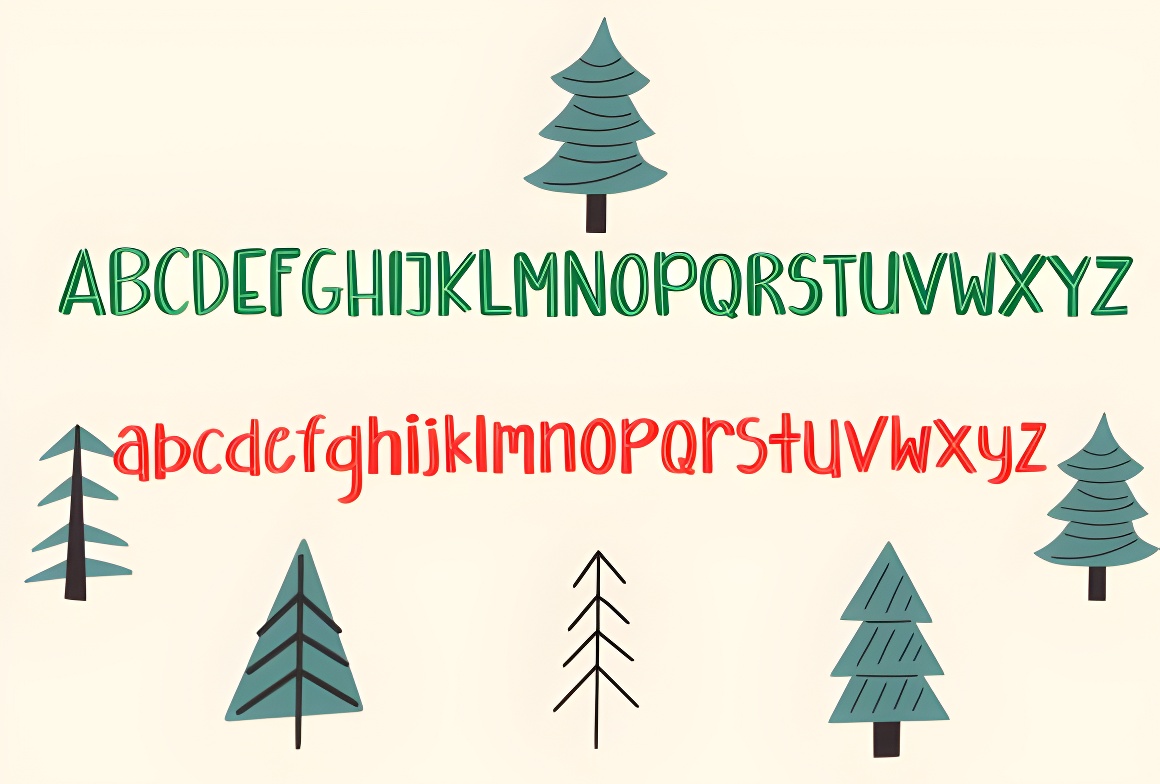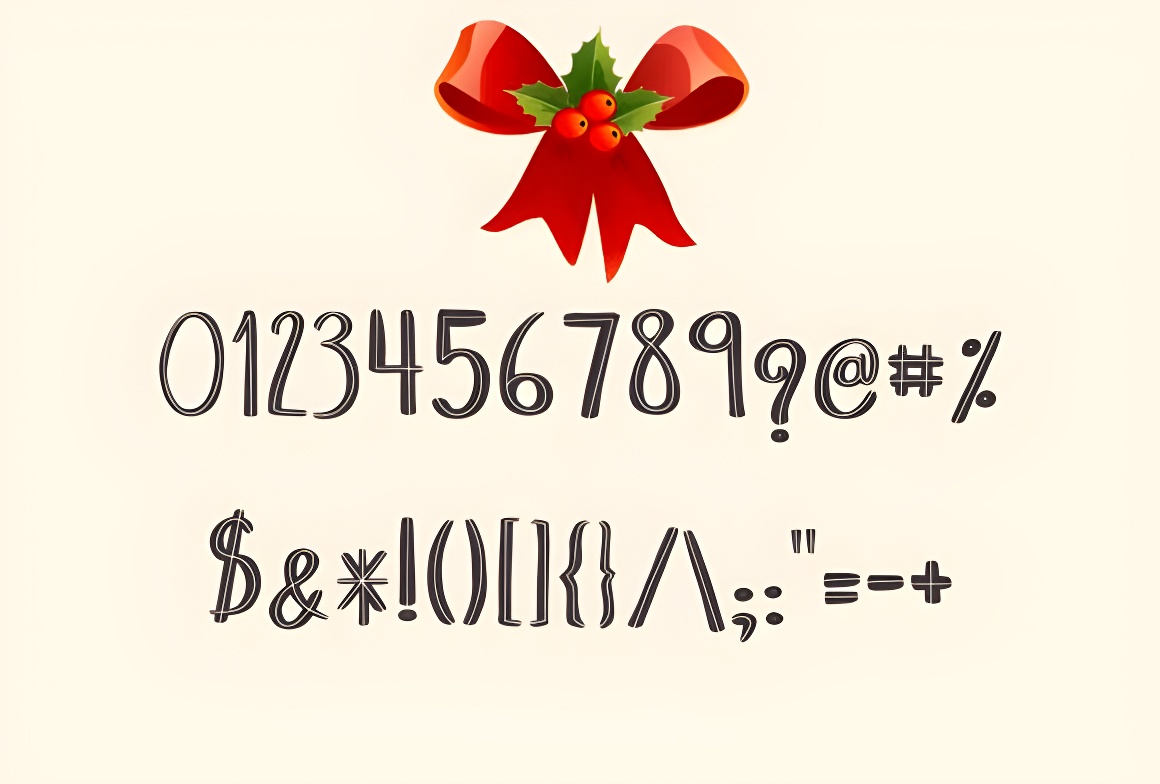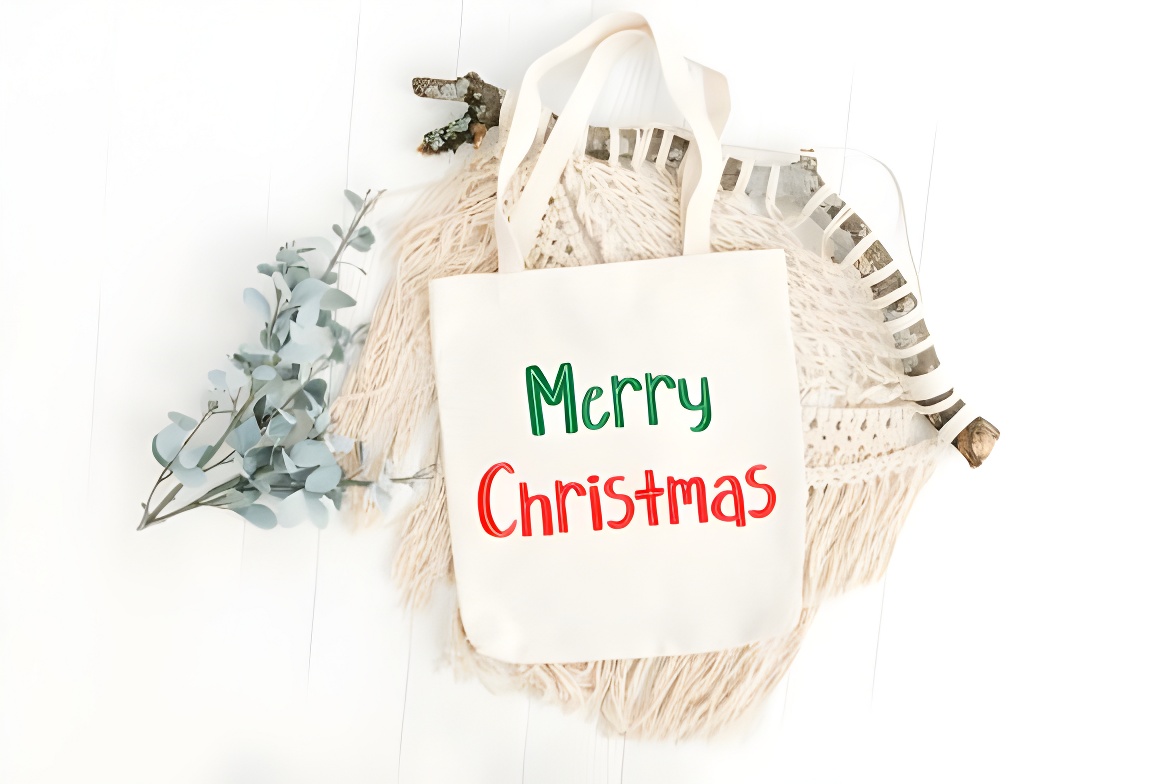
Christmas Team Handwritten Font - Fun Quirky Style for Crafts, Cards
Christmas-themed handwritten font perfect for holiday crafts, greeting cards, digital design, and festive projects. Fun, quirky style adds charm to any celebration!